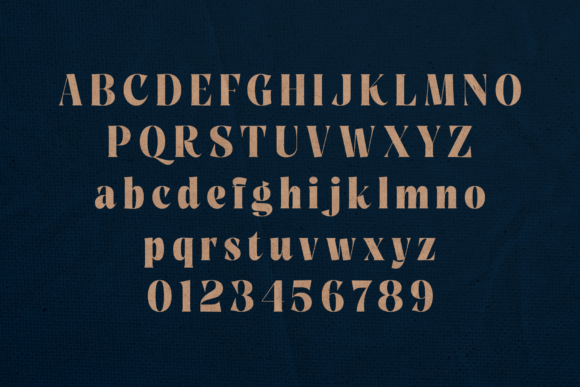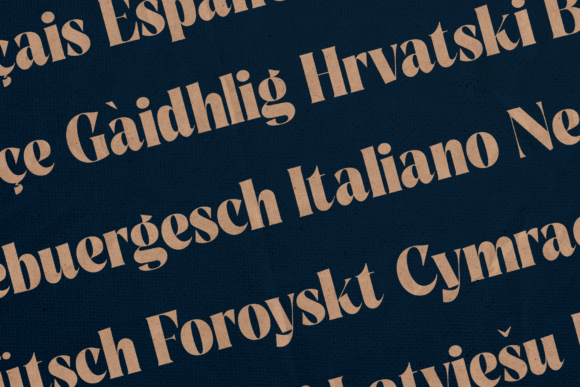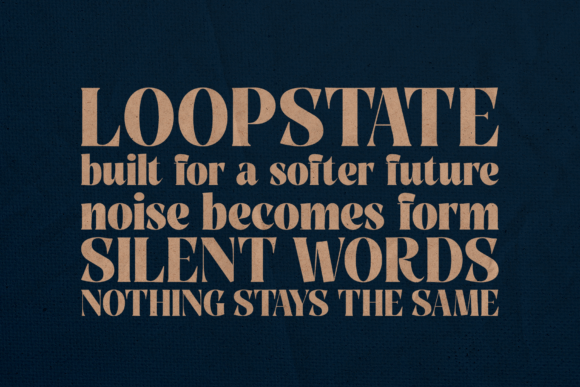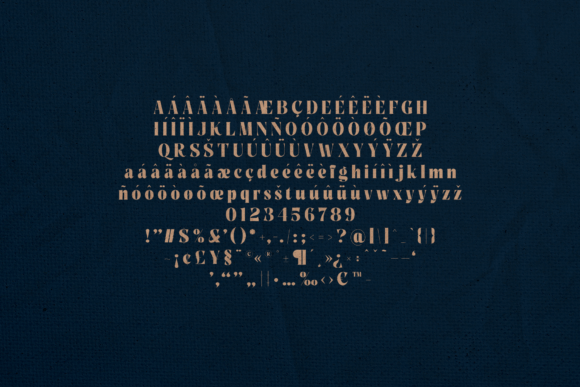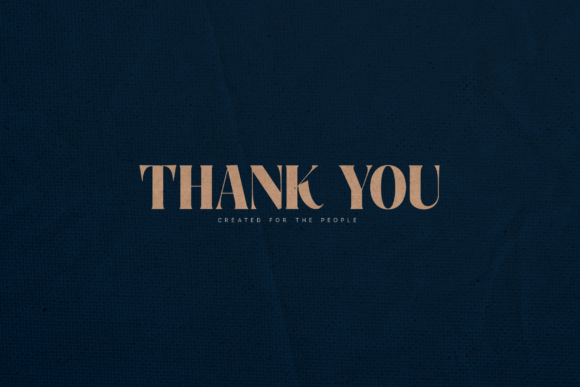
Introduction to Pure Motif Font
Have you ever stared at a beautiful wordmark and felt a spark of inspiration for your next creative project? For designers, that moment of epiphany is priceless. It’s the culmination of hours spent perfecting every detail, from typography to color palette. The Pure Motif Font is that spark, a refined serif typeface that elevates your branding and compositions to new heights.
With its classical proportions and contemporary sharpness, the Pure Motif Font is a game-changer for any design project. Whether you’re working on a luxury branding campaign or an editorial cover, this font carries a timeless presence that feels established, intentional, and unmistakably premium. As a valuable design resource, the Pure Motif Font offers a wealth of possibilities for creative expression.
Key Features of Pure Motif Font
- High-quality font design with a unique and creative style, perfect for any design project.
- Transparent background, allowing for easy customization and integration into various design elements.
- Unique characteristics include a modern and minimalist aesthetic, with clean lines and elegant typography.
- Perfect for creative projects, such as branding, logos, and typography-based designs, where a distinctive font is essential.
Honest Review: Pure Motif Font
I recently had the chance to work with the Pure Motif Font, and I’m excited to share my thoughts on this design resource. As a designer, I’m always on the lookout for high-quality fonts that can elevate my creative projects. The Pure Motif Font definitely delivers.
- ✨ High-quality design: The font is clean, modern, and visually appealing.
- ✨ Transparent background: This makes it easy to use the font with any background image or color.
- ✨ Versatile: The font comes in a range of weights and styles, making it perfect for a variety of design projects.
- ⚠️ Limited language support: The font only includes support for a few languages, which may be a concern for designers working on international projects.
Overall, I’m impressed with the Pure Motif Font. It’s a high-quality design resource that can add a touch of sophistication to any creative project. While there are a few limitations, I think the benefits far outweigh the drawbacks.
The Pure Motif Font is suitable for a wide range of creative projects, including graphic design, digital art, and typography. Use it to create eye-catching headlines, stylish titles, and unique text effects for your design.
Can I customize the Pure Motif Font to fit my design needs?
Yes, the Pure Motif Font is highly customizable. With its advanced features and high-quality design, you can easily adjust the font’s style, size, and color to fit your specific design requirements. Whether you’re working on a logo, branding project, or any other creative endeavor, the Pure Motif Font is an excellent design resource to have in your toolkit.